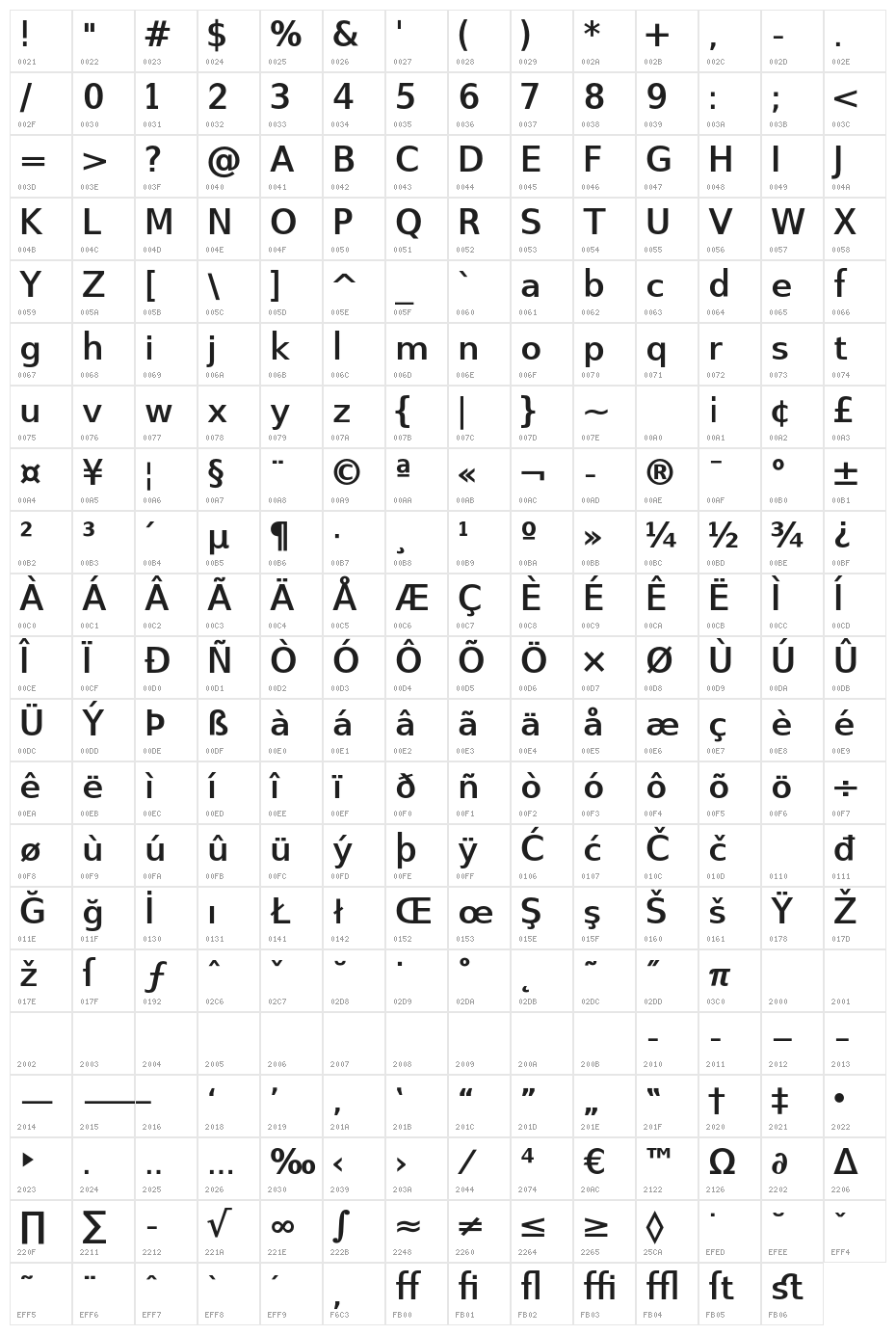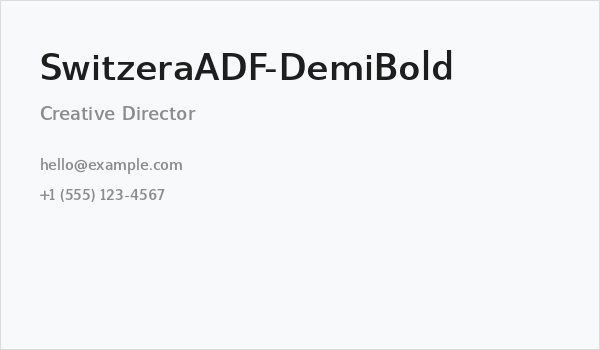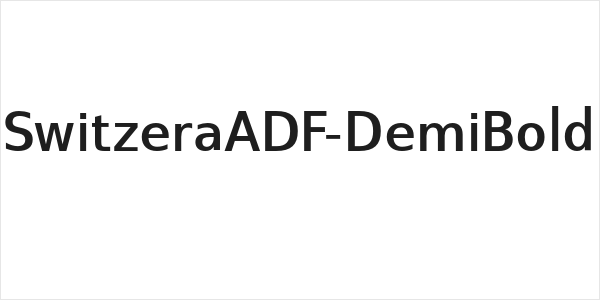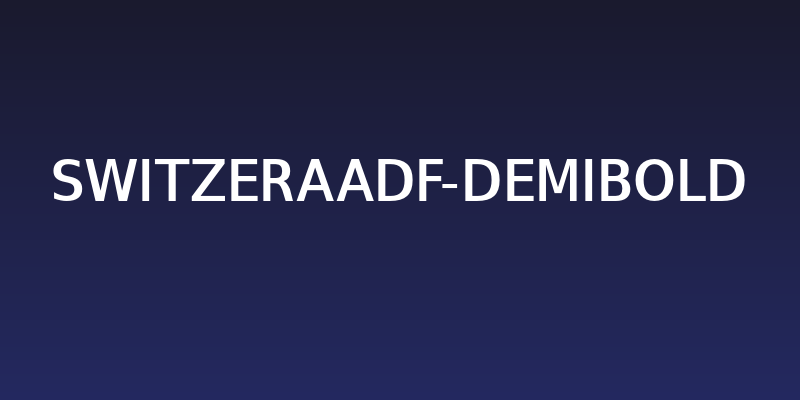
SwitzeraADF-DemiBold Font
SwitzeraADF-DemiBold Description
This typeface exhibits a clean and modern aesthetic with a strong emphasis on clarity and readability. The characters are well-balanced, featuring uniform stroke widths that contribute to its legibility. The uppercase letters are bold and assertive, while the lowercase letters maintain a consistent height, enhancing the overall harmony of the font. The numerals are clear and distinct, making them easily distinguishable. Special characters are designed with precision, ensuring they integrate seamlessly with the rest of the typeface. This font is versatile, suitable for both digital and print media, and can be used effectively in a variety of design contexts.
Proposed ProjectsIdeal for branding, corporate identity, web design, and editorial layouts.